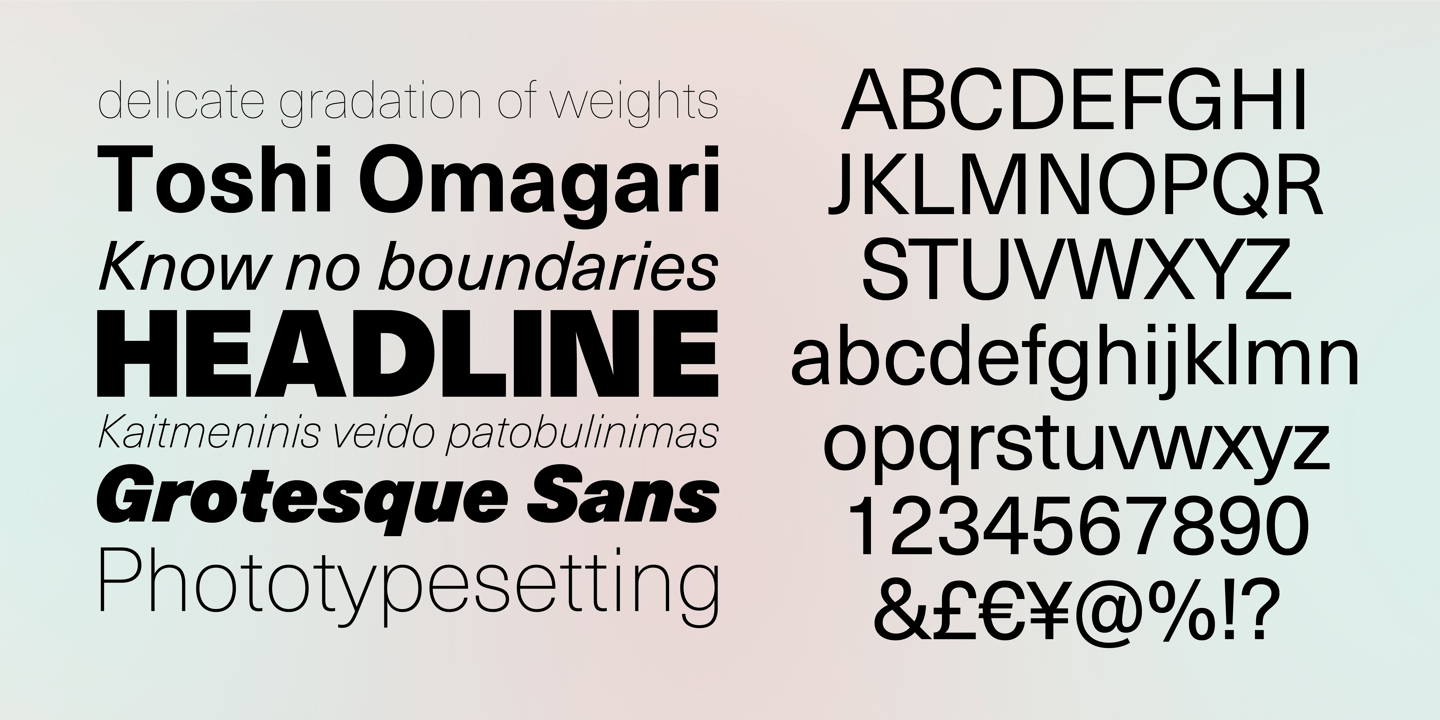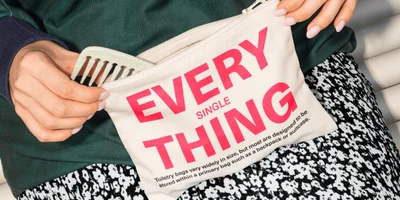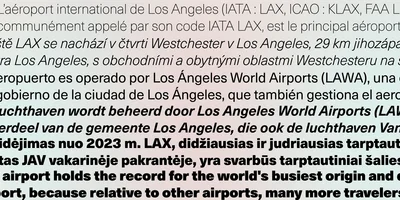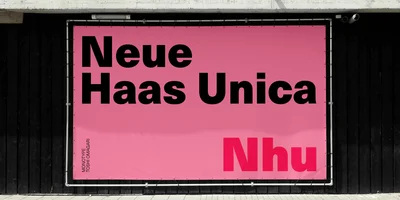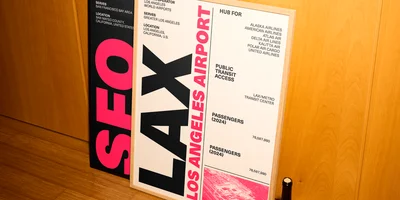
Acumin Pro vs Neue Haas Unica
Acumin Pro and Neue Haas Unica are both sans-serif typefaces sharing a neo-grotesque foundation. The two share 79% design similarity overall. Compare which suits your Corporate project.
79% Similarity
Design overlap:67%
Acumin Pro
Neo-Grotesque
ModernMinimal
Neue Haas Unica
Neo-Grotesque
Modern
Acumin Pro
Neue Haas Unica